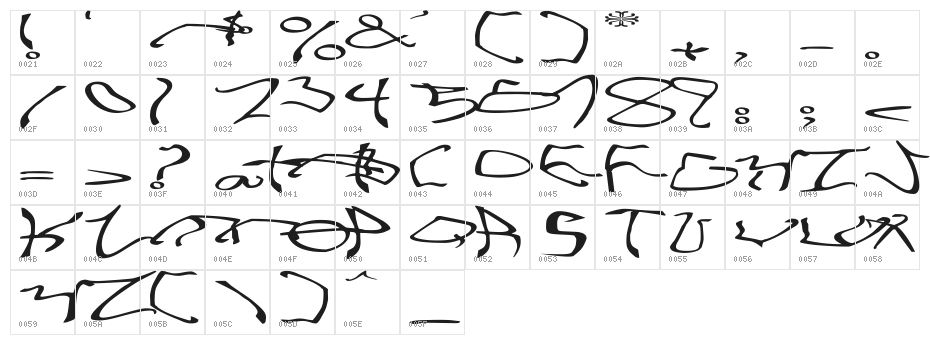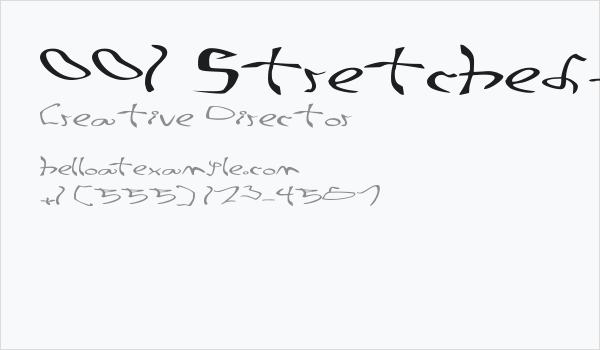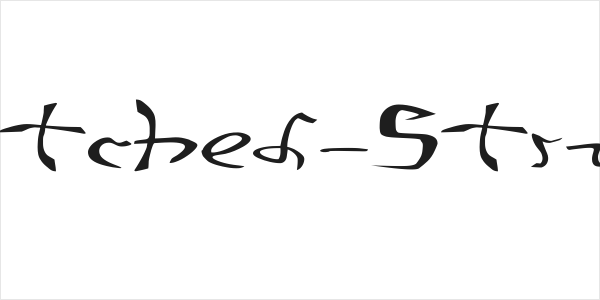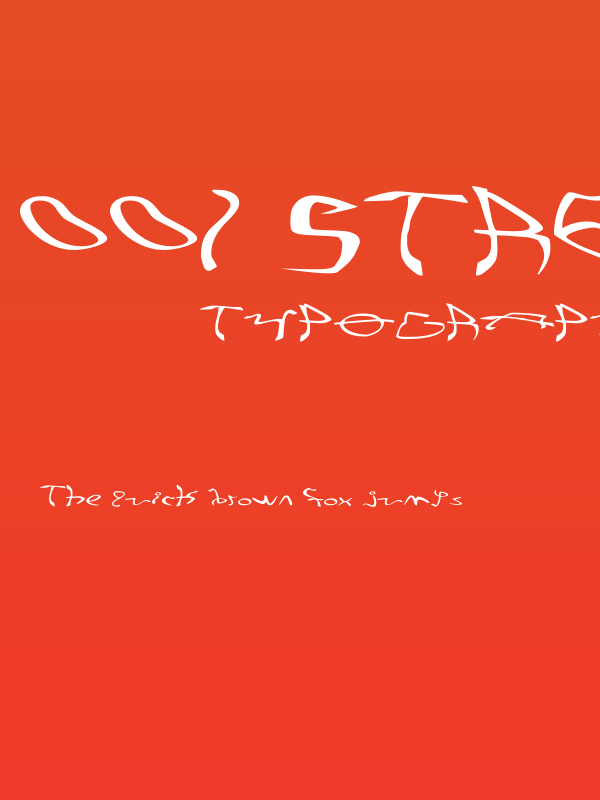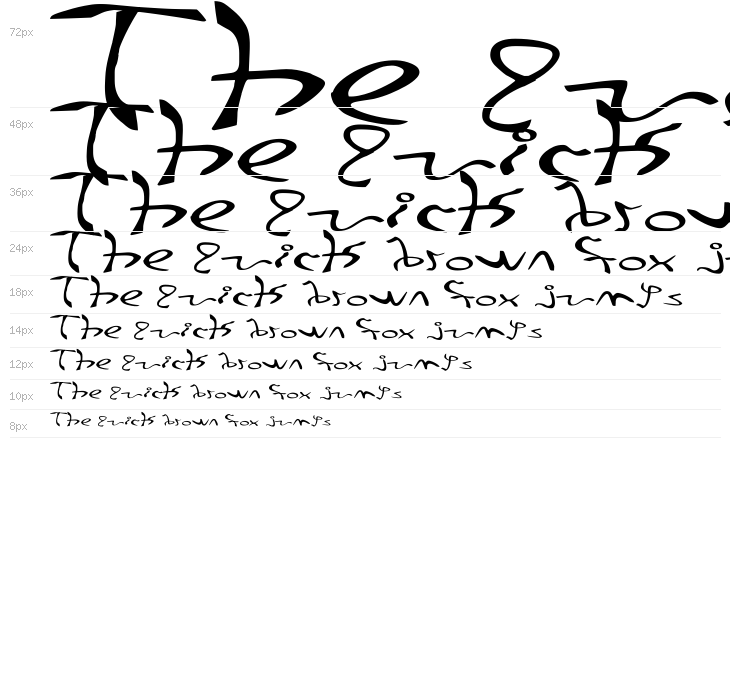
001 Stretched-Strung Wide Font
001 Stretched-Strung Wide Description
This font features a highly stylized and artistic design, characterized by its elongated and fluid letterforms that give it a unique, almost calligraphic appearance. Each character appears to be stretched and twisted, creating a sense of motion and dynamism. The strokes are varied in thickness, adding to the font's expressive nature. The overall design is reminiscent of abstract art, making it stand out as a decorative and eye-catching choice. The font's unconventional style makes it suitable for creative projects where a distinctive and artistic look is desired.
WidthExpanded
Overall StyleArtistic, Abstract
Use CaseLogos, Posters, Artistic projects
Proposed ProjectsIdeal for art projects, creative branding, album covers, and posters where a unique and expressive style is needed.